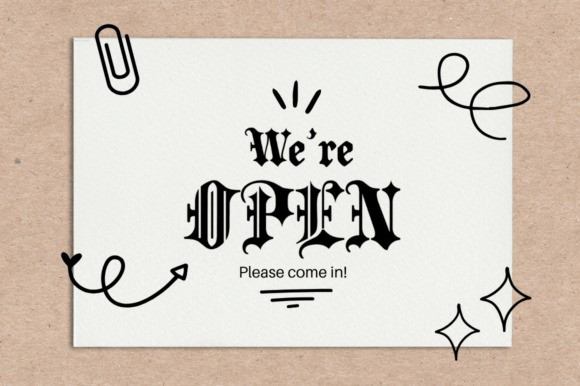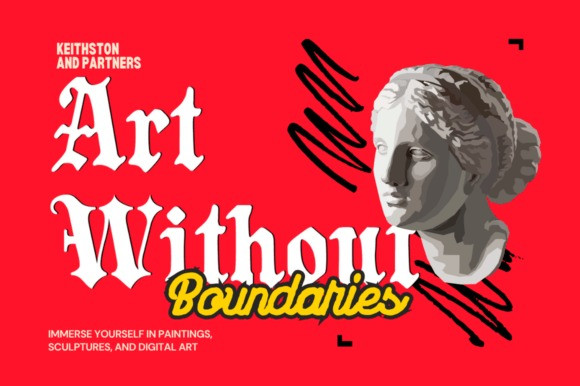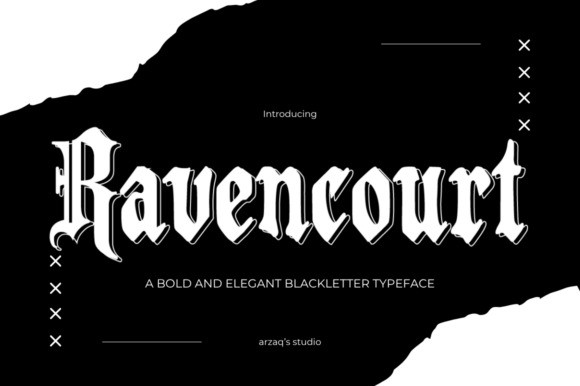
Ravencourt Blackletter Font
Ravencourt Blackletter Font is a bold and elegant blackletter typeface inspired by classic Gothic calligraphy. With sharp serifs, ornate curves, and a medieval flair, this font is perfect for vintage logos, tattoo designs, book covers, poster headlines, or fantasy-themed branding. It adds a dramatic, historical touch to any creative project and is ideal for designers seeking a dark, mysterious, and powerful visual aesthetic.